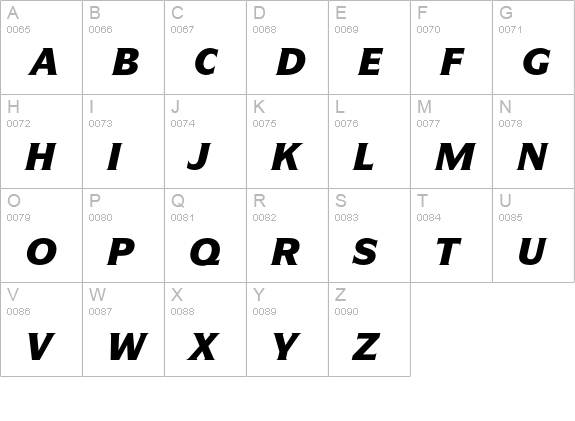
SymbolEF-BlackItalic is a bold and stylish font that exudes elegance and sophistication. Its sleek design and slanted italics add a touch of modernity to any project. The sharp edges and strong lines of this typeface make it stand out and command attention. Whether used for headings, quotes, or logos, SymbolEF-BlackItalic is sure to make a statement. The best part is that SymbolEF-BlackItalic is completely free to download at FontsMarket.com. This means you can easily access this premium font without any cost, making it a valuable addition to your design toolbox. Don't miss out on the opportunity to enhance your projects with the striking beauty of SymbolEF-BlackItalic. Download it today and elevate your designs to the next level.